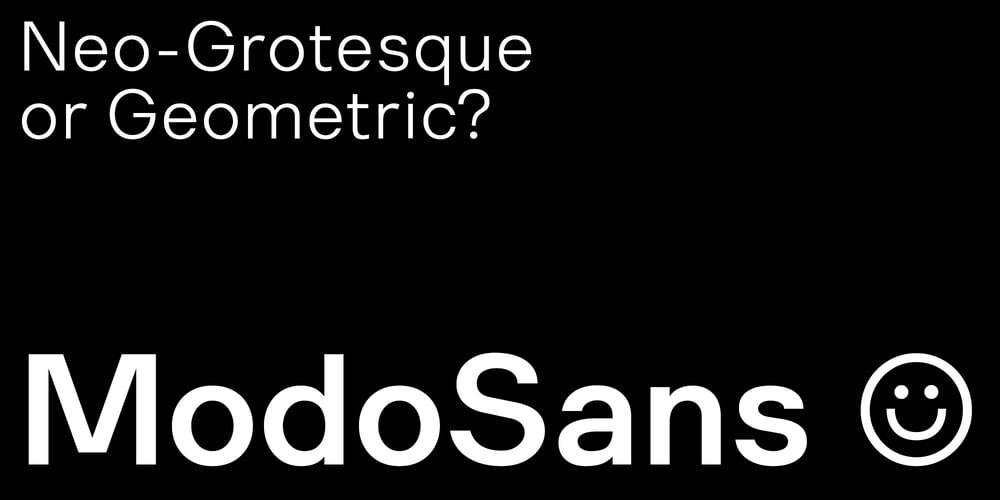
Modo Sans
Modo Sans font
Modo Sans Font Family was designed by Davide Romito and published by Davide Romito. Modo Sans contains 15 styles and family package options. Modo Sans is born to balance the neutrality of neo-grotesque with the captivating approach of geometric typefaces, to offer a new typographic experience. Balanced apertures, harmonious proportions, wide apex junctions, and a slightly pronounced contrast, especially in the darker weights, characterize the ideal choice for those seeking a typeface that combines form, function, and contemporaneity. Modo Sans shines for its versatility, adapting with agility to the specific needs of every visual project. Whether it’s extensive texts or distinctive elements like titles, logos, and signage, it stands out for its impeccable legibility in every context, both for those working on printed media and for those developing digital projects.With its wide range of styles for weights and inclinations, Modo Sans offers the possibility of precise customization, allowing you to tune in to the desired tone and style. A complete typographic universe that fluently embraces the Latin, Cyrillic, and Greek alphabets, ensuring seamless integration even in multilingual contexts.